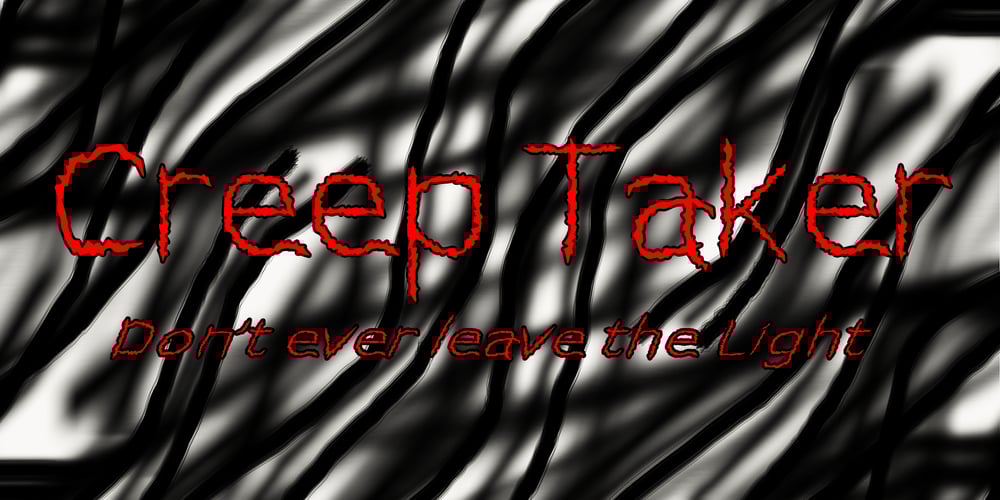
Creep Taker Font Family was designed by Ali Nurdiansyah and published by Alcytrectype. Creep Taker contains 1 styles and family package options. With a horror theme presented in it, you can use this font for those of you who like things related to horror